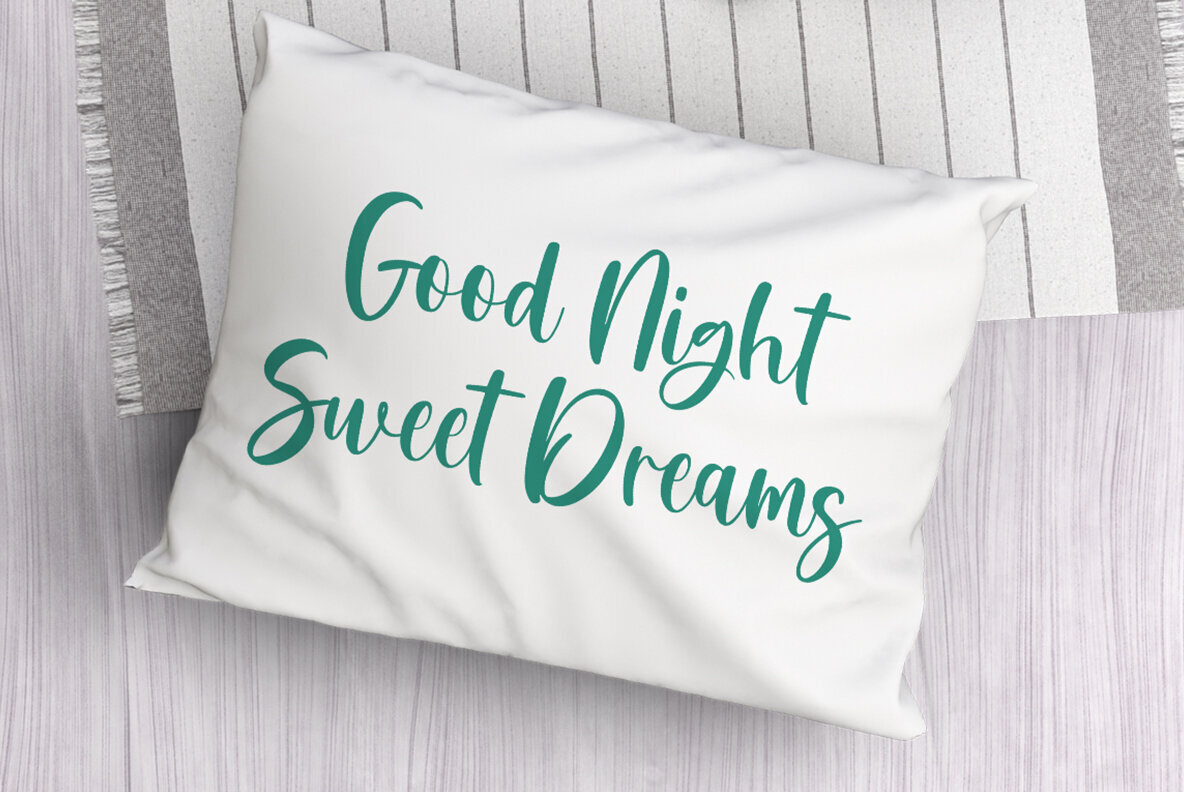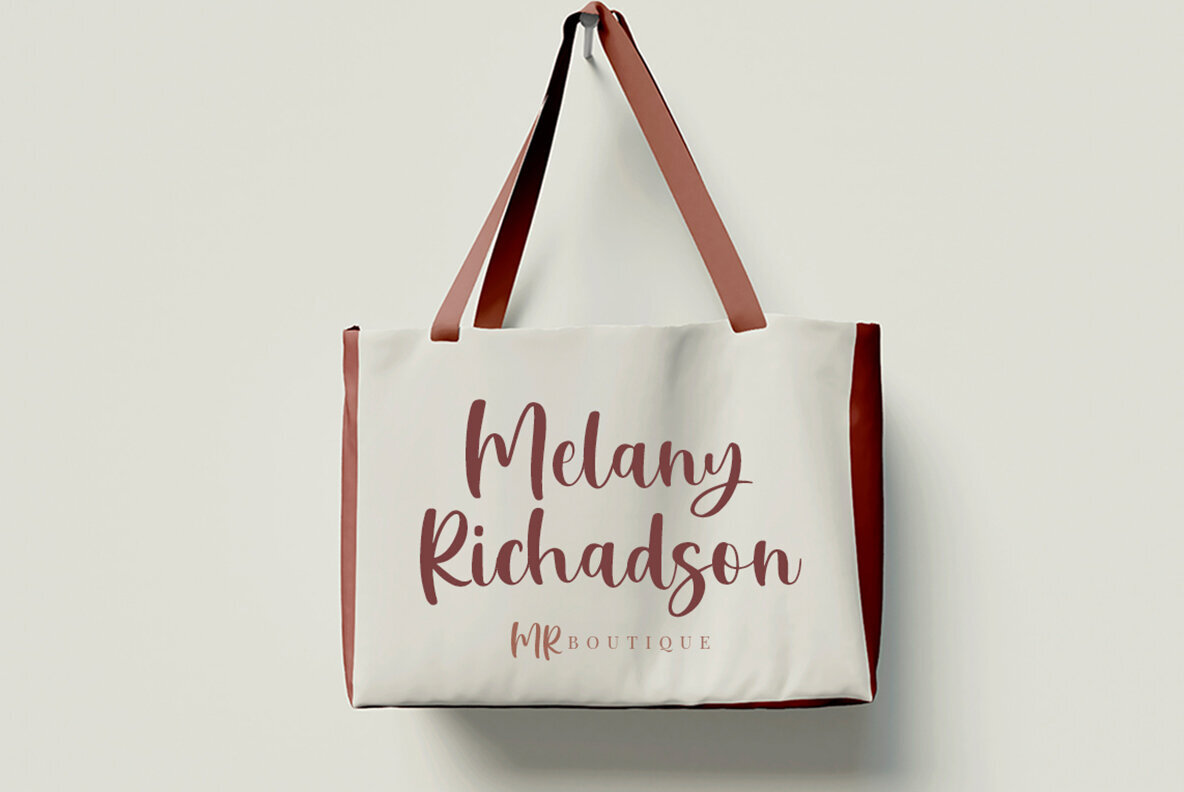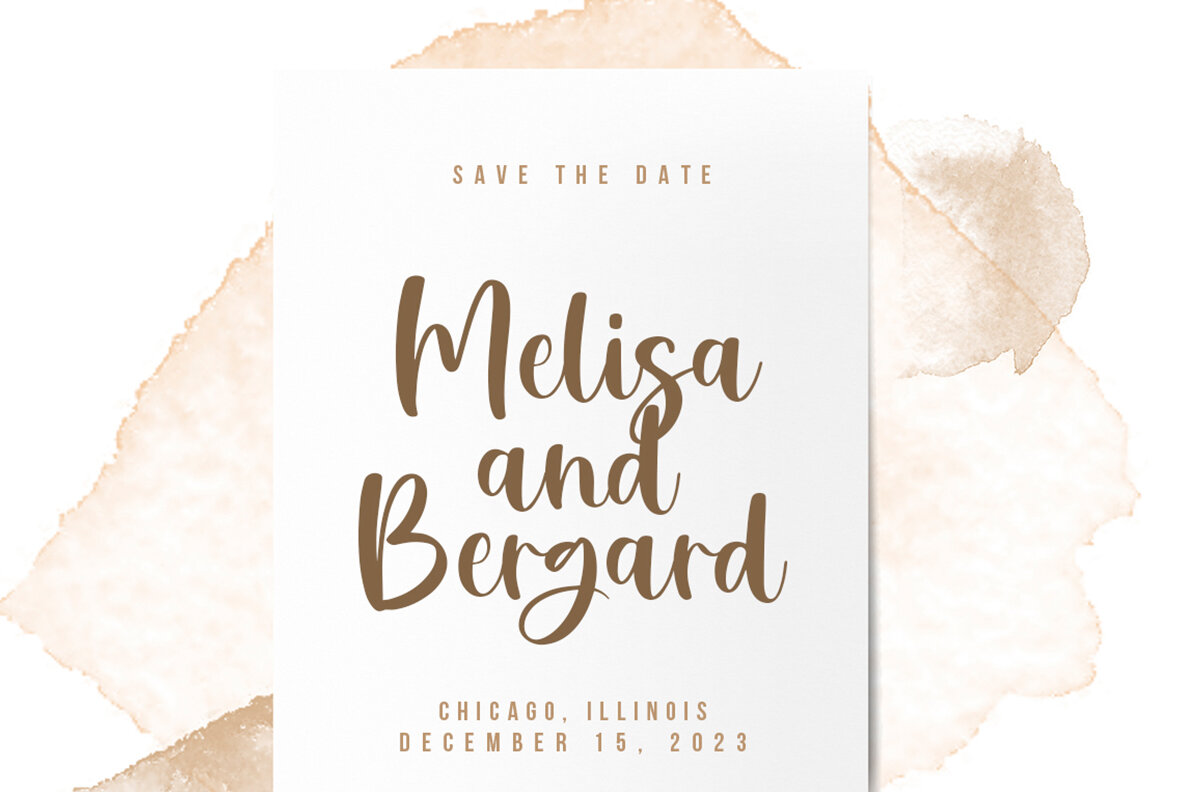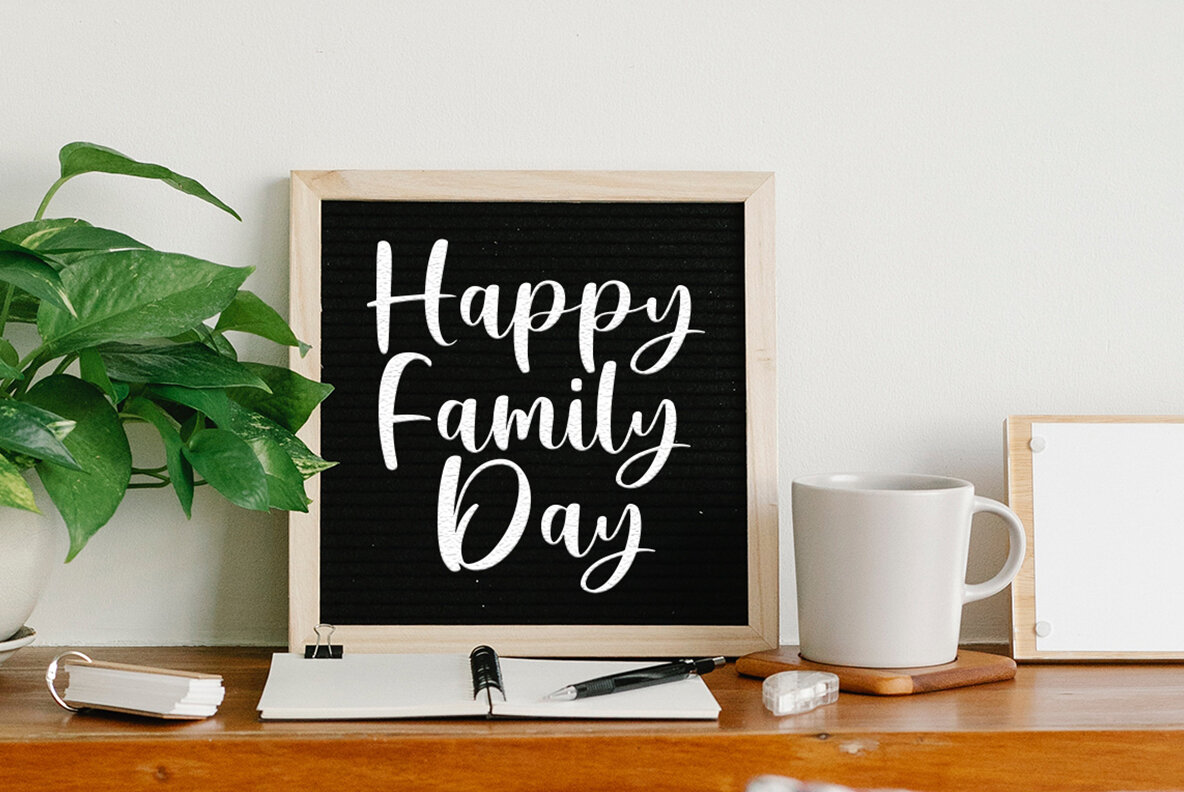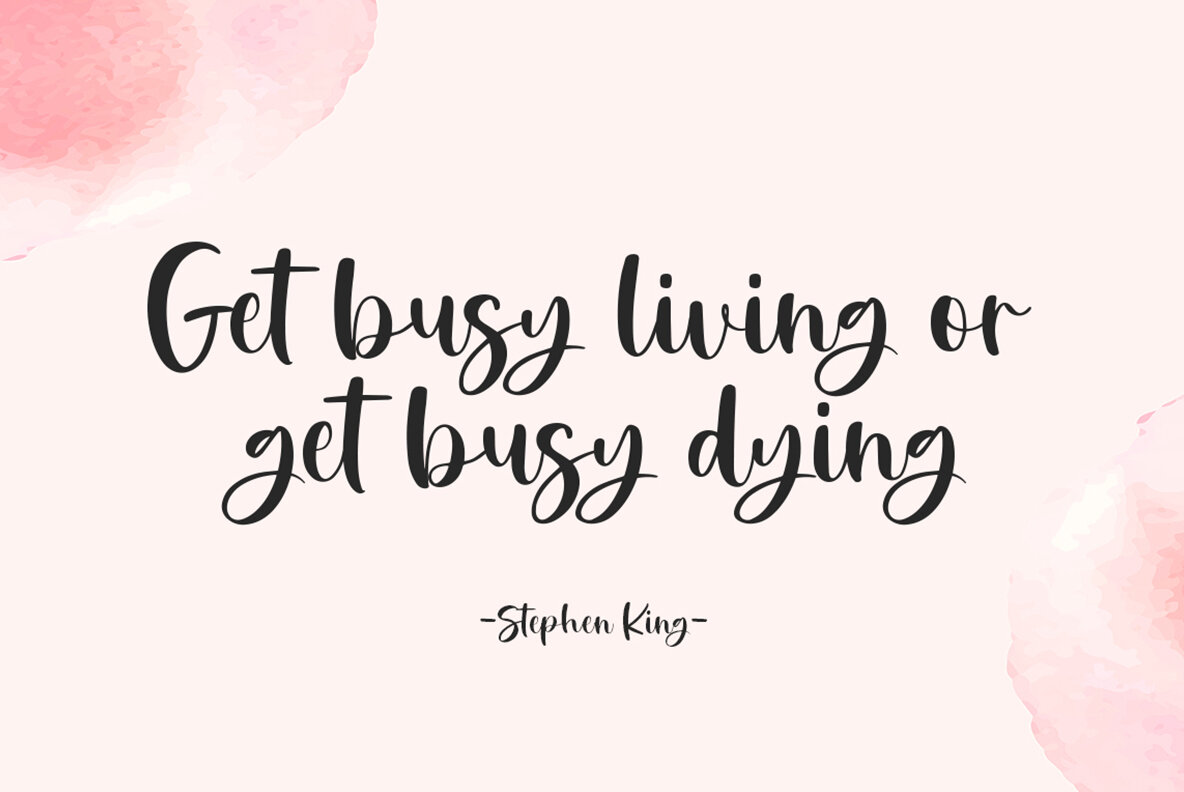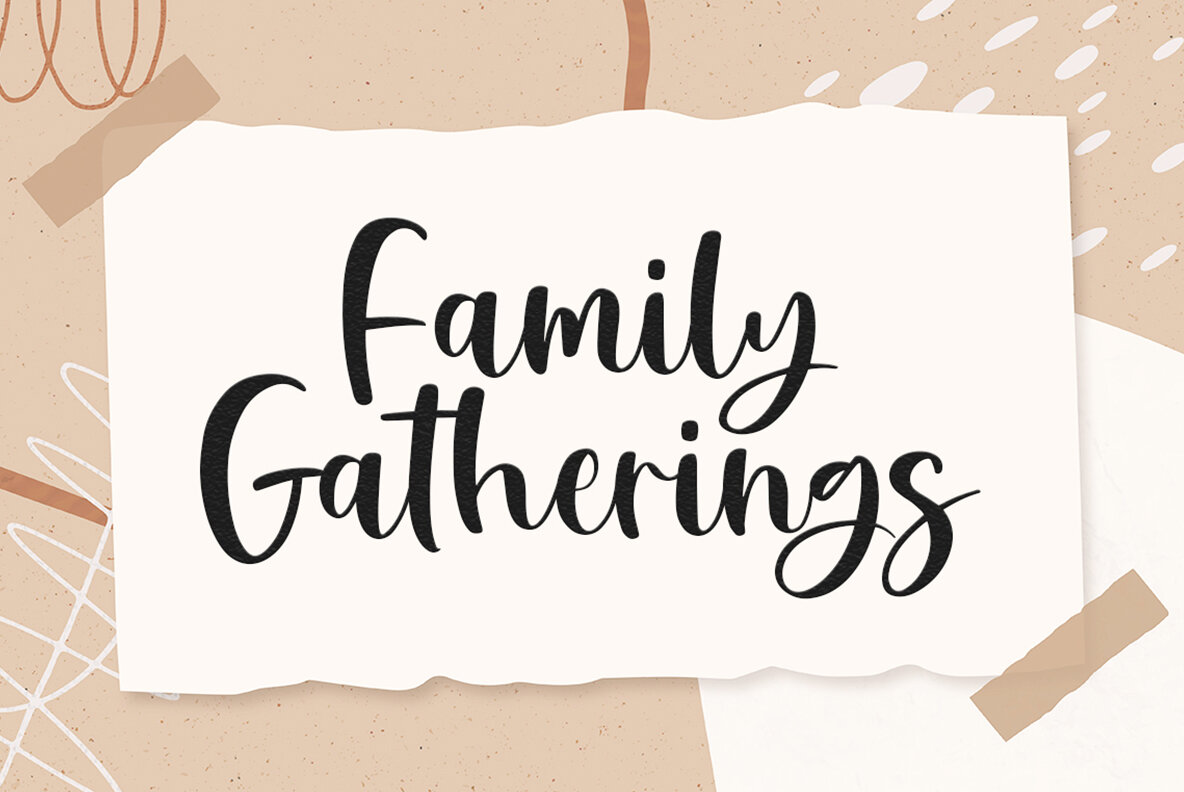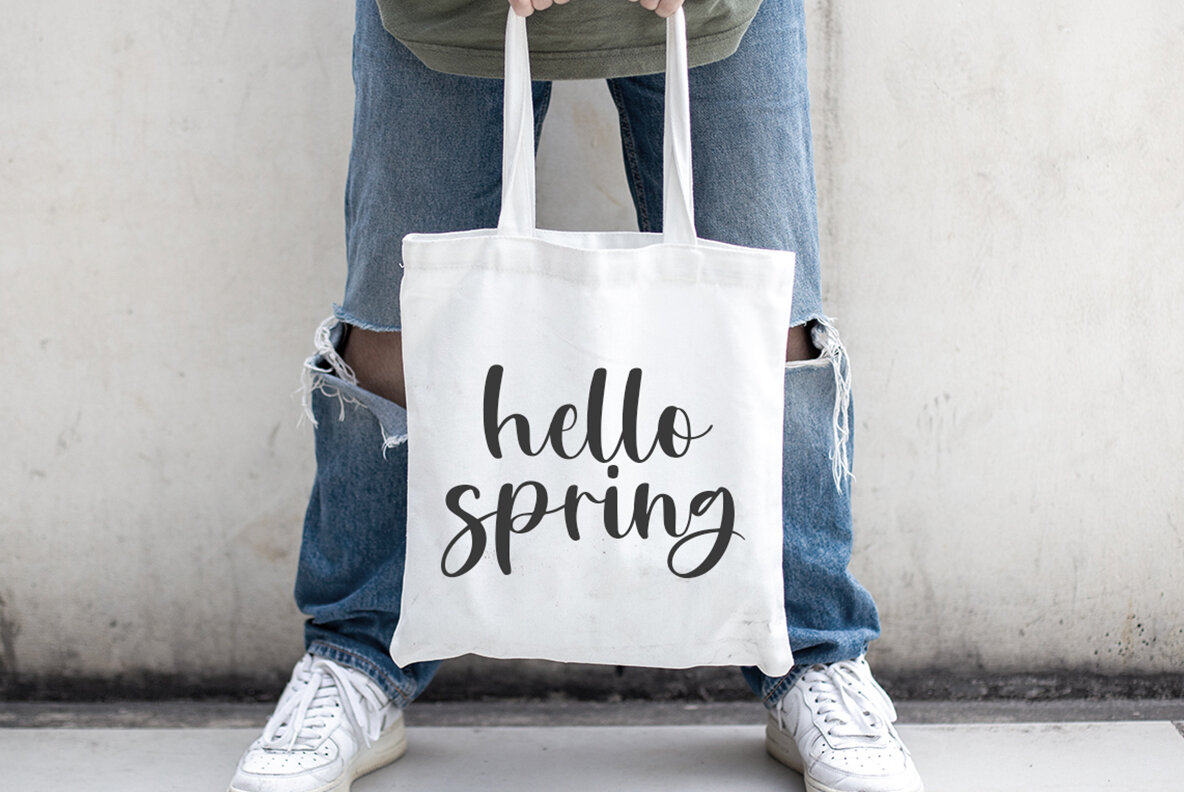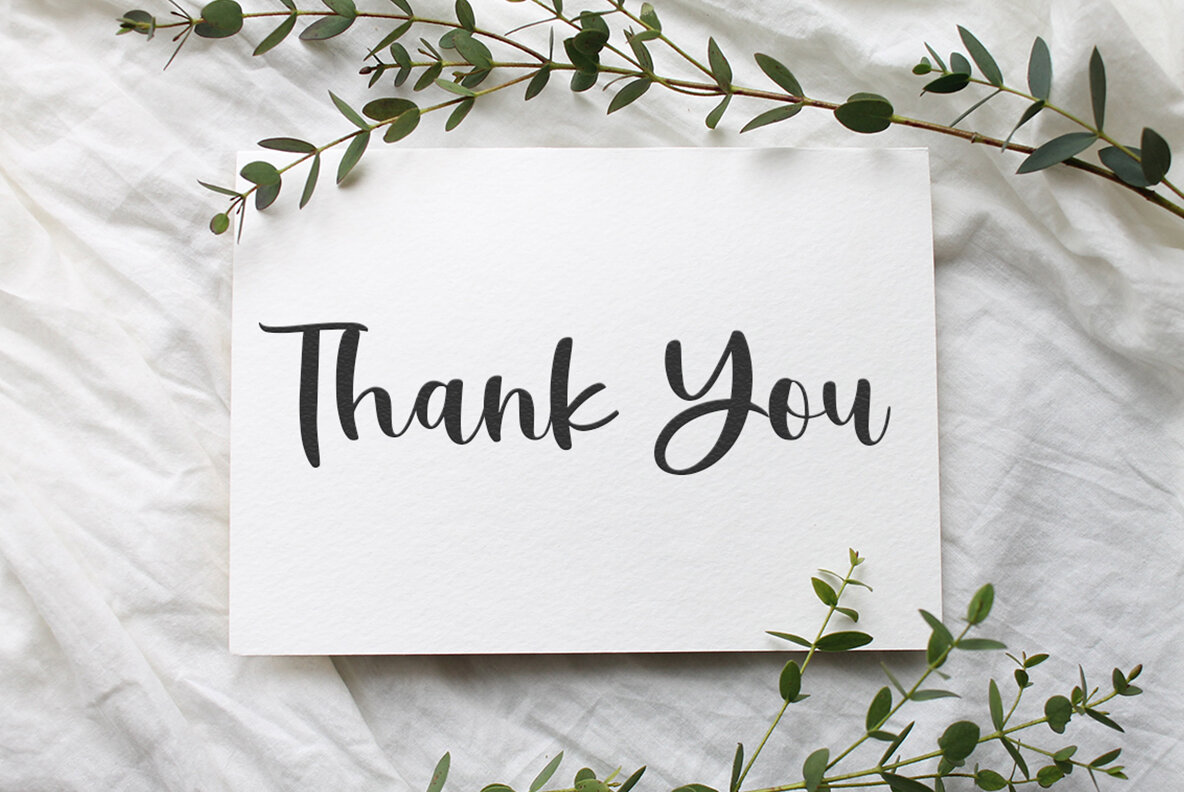
Peaky Rangers Font
Peaky Rangers Regular
Peaky Rangers offers a unique take on modern calligraphy, embodying a style that is both lively and contemporary. This handwritten script font is ideal for projects that require a touch of elegance and personal flair. Whether you're working on elegant home designs or planning wedding decorations, Peaky Rangers brings a playful sophistication. Its versatile design makes it a great choice for invitations, circuit projects, and crafts. The whimsical nature of this font also complements SVG files, shirts, quotes, greeting cards, branding, prints, logos, and numerous other creative projects.Peaky Rangers: A Playful Handwritten Script Font